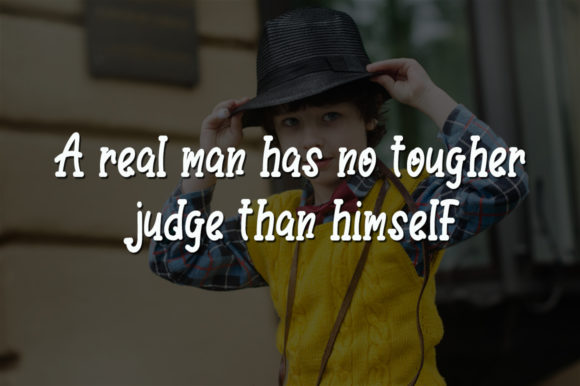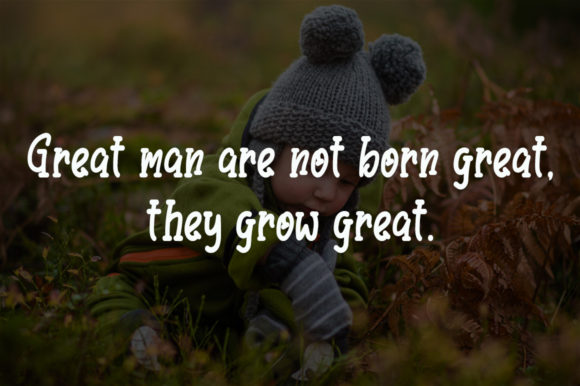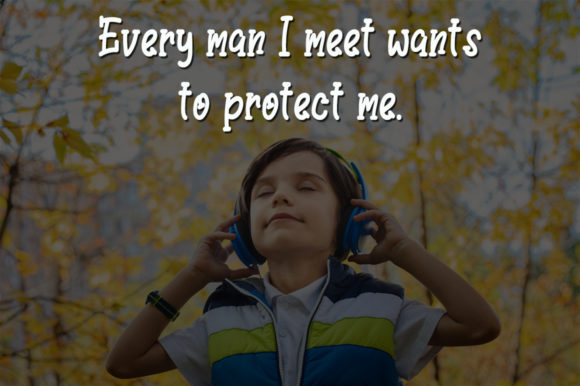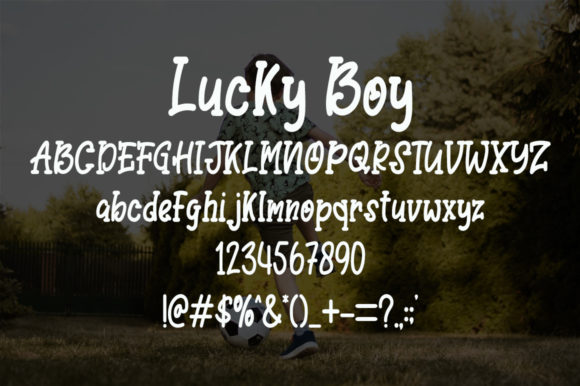
Introduction to Lucky Boy Font
Lucky Boy is a fun and quirky looking display font.
It will look great on any children or school project, so employ it confidently and notice how your designs come alive .